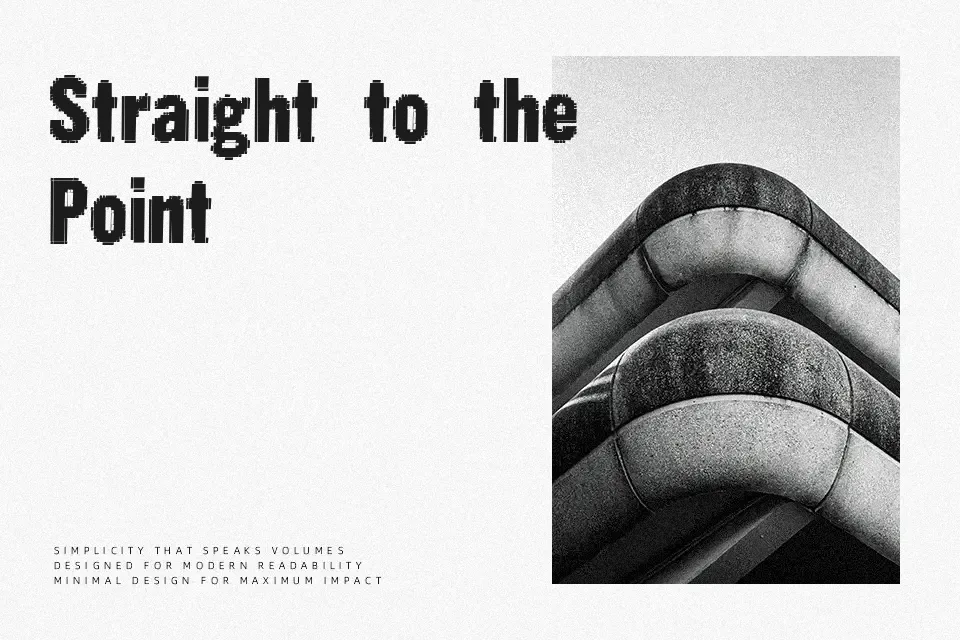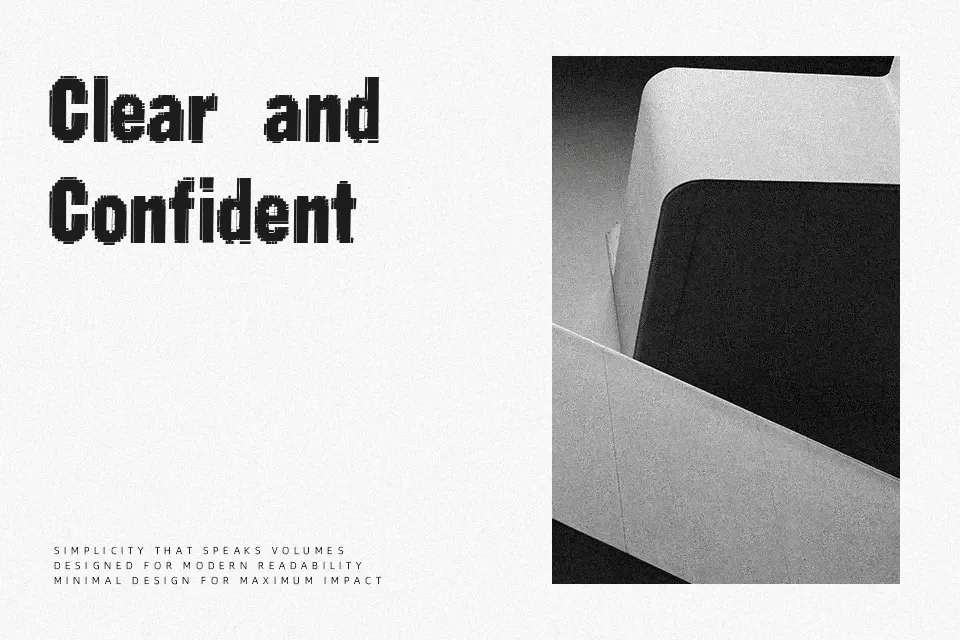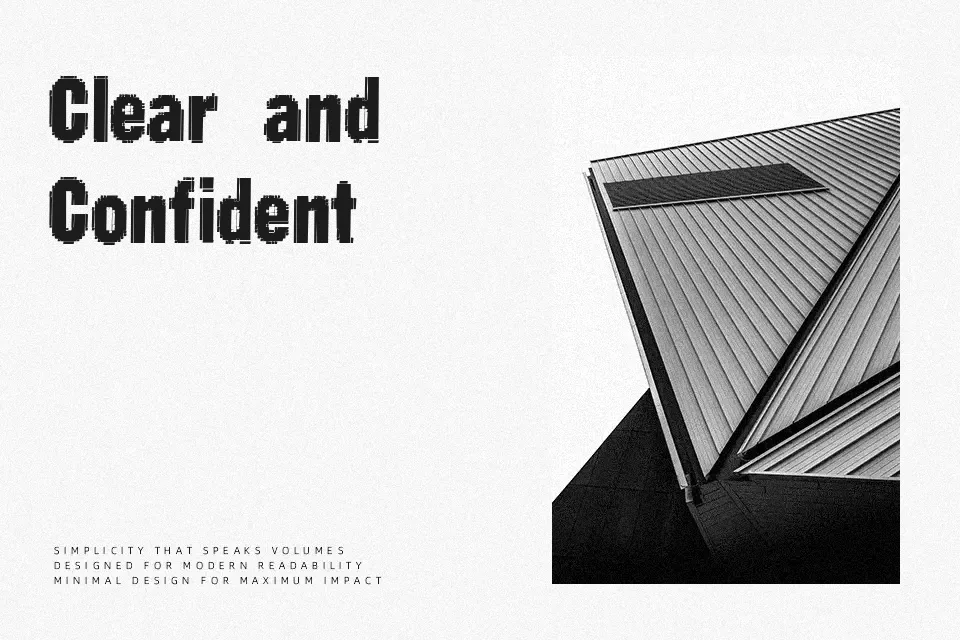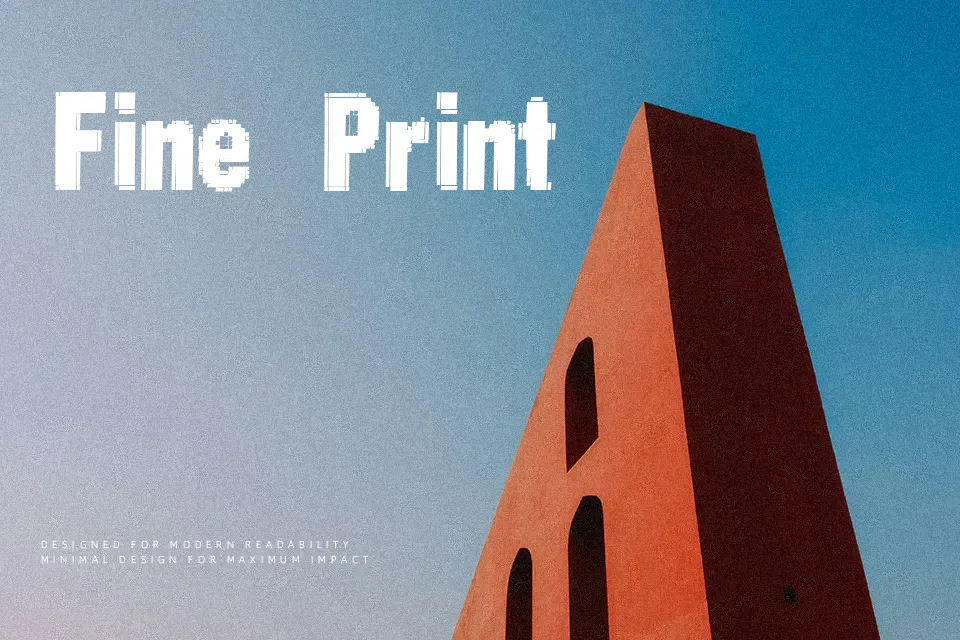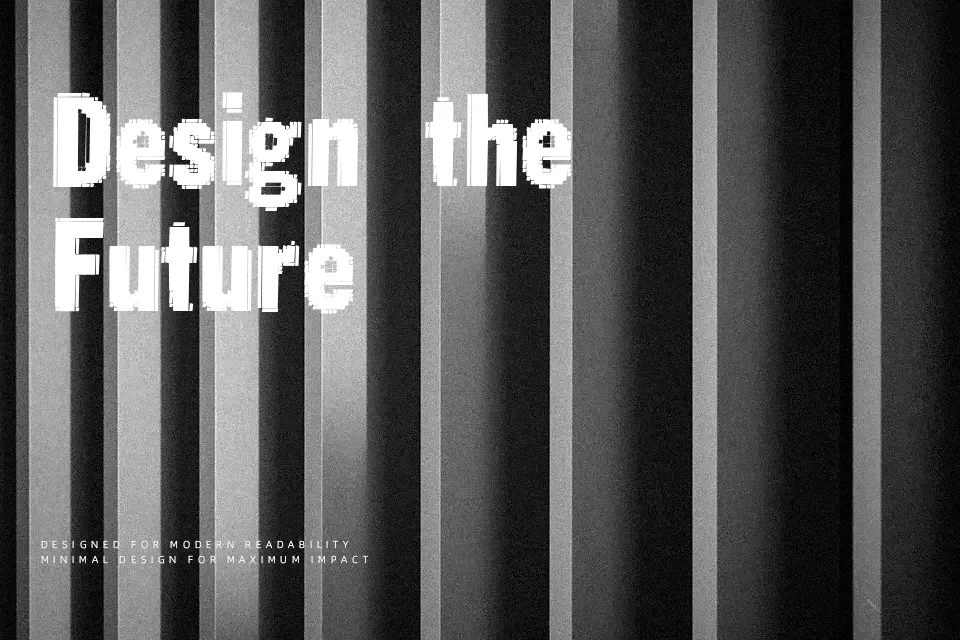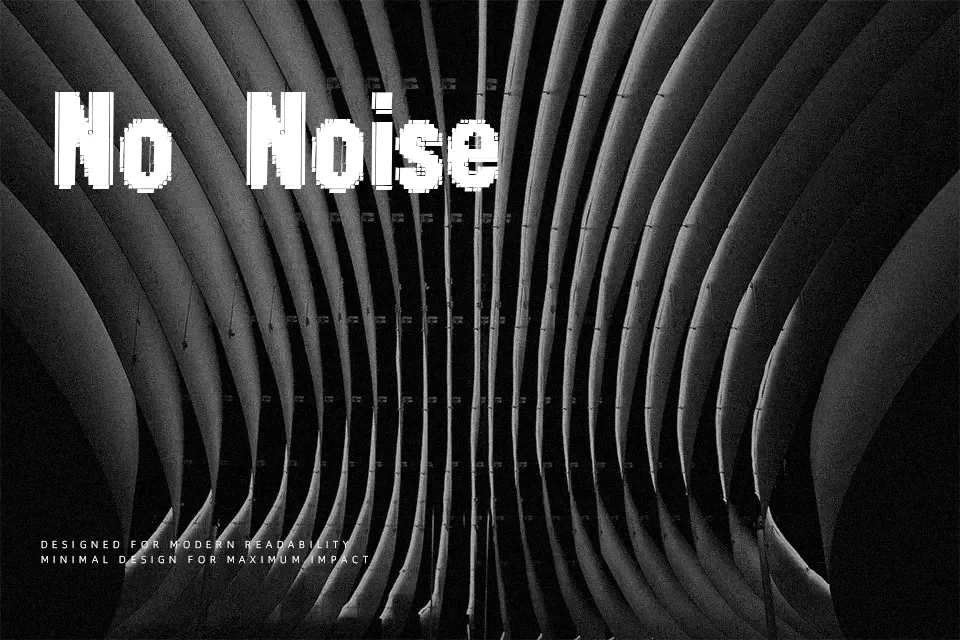
Static Age Fine Tuning Font
Designed by Digital Graphic Labs
Static Age Fine Tuning Font presents a distorted sans serif structure built with softened stroke edges that emulate cathode-ray tube static and optical blurring. The letterforms maintain uniform proportions across the uppercase set, paired with moderately compact spacing that emphasizes its digital interference aesthetic. At headline sizes, the typeface provides immediate visual intrigue for cyberpunk branding, dystopian book jackets, and music festival flyers. However, the blurred contours significantly reduce character definition in smaller sizes, making the design ill-suited for continuous body text or dense interface labels. The deliberate distortion creates an engaging atmospheric tension when given ample breathing room.
sci-fi video game logos,electronic music album packaging,dystopian movie title cards,glitch art poster headlines
continuous paragraph reading,small user interface labels,corporate financial reports,dense editorial text layouts
Perfect for film, gaming, and headline, with a futuristic and decorative style.